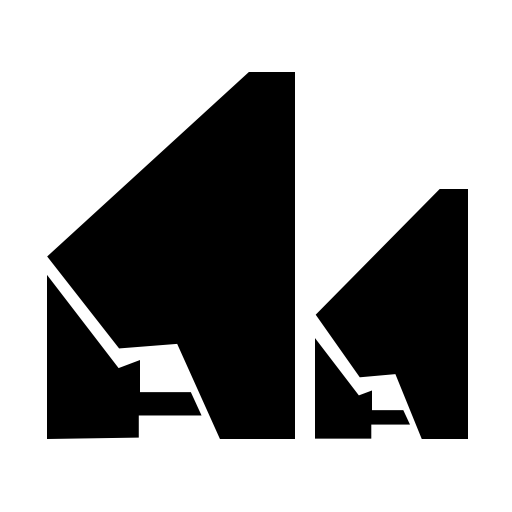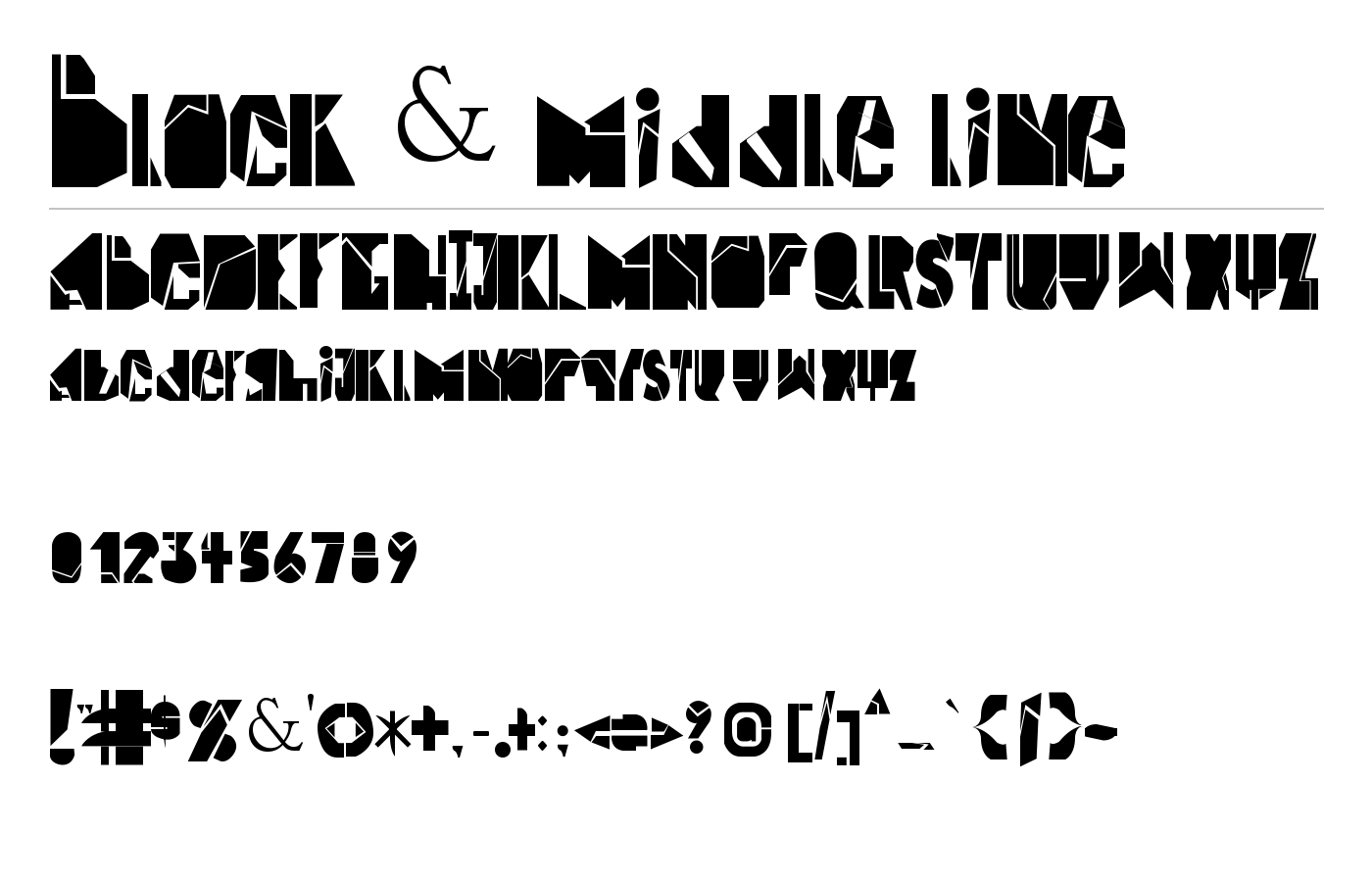
Block & middle line is a bold, geometric display font with a distinctive fragmented design, combining solid black shapes with sharp, contrasting middle lines that create a striking, modern look. Its condensed letterforms and irregular cutouts give it an edgy, architectural feel, making it ideal for eye-catching headlines, posters, and branding where a strong, unconventional impact is desired. This font works best in creative, urban, or futuristic contexts where standout, artistic expression is key.
Block & middle line Font